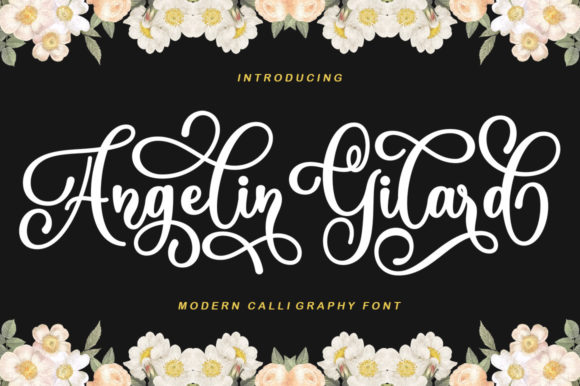
Unleash the captivating power of Angelin Gilard, a dazzling script font crafted to mesmerize and enchant. Immerse yourself in a world of elegance and sophistication as you witness the intricate details and graceful curves that define this extraordinary font. With Angelin Gilard, your creations will transcend the ordinary, leaving an everlasting impact on your audience.
Step into a realm of boundless creativity, where Angelin Gilard becomes your trusted companion, transforming your words into works of art. Whether you're crafting a captivating magazine cover, designing an alluring logo, or creating enchanting social media graphics, Angelin Gilard will elevate your designs to new heights. Its versatility knows no bounds, allowing you to effortlessly adapt it to any project, from elegant invitations to heartfelt letters.
With Angelin Gilard, you'll discover a font that speaks to the heart, evoking emotions and leaving a lasting impression. Its meticulously crafted glyphs and swashes add a touch of magic to every character, inviting your audience on a visual journey they won't soon forget. Embrace the limitless possibilities of Angelin Gilard and unlock the gateway to a world where creativity thrives and beauty reigns supreme.
Don't settle for ordinary fonts that blend into the background. Choose Angelin Gilard, a font that commands attention, captivates hearts, and leaves an indelible mark on your audience. Its timeless beauty and undeniable charm will elevate your designs, making them shine brighter than ever before. Experience the transformative power of Angelin Gilard today and embark on a creative journey like no other.